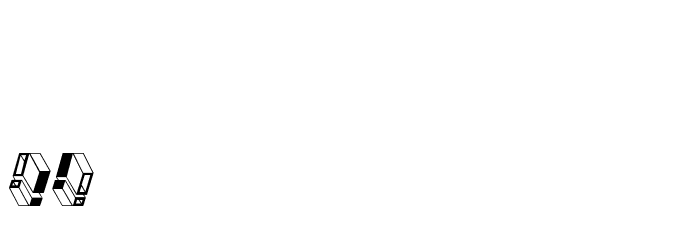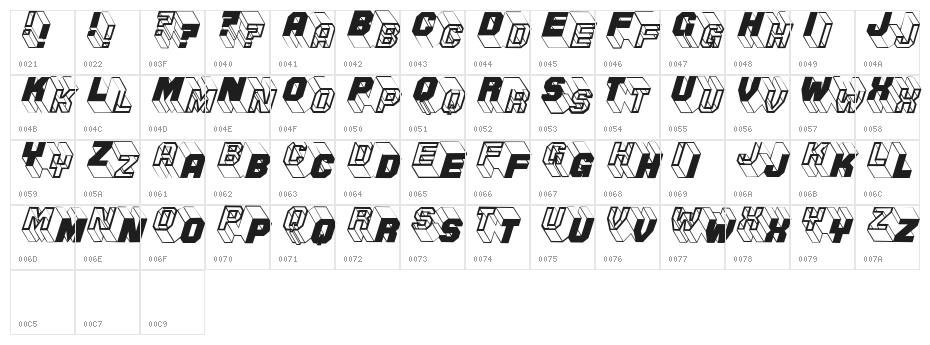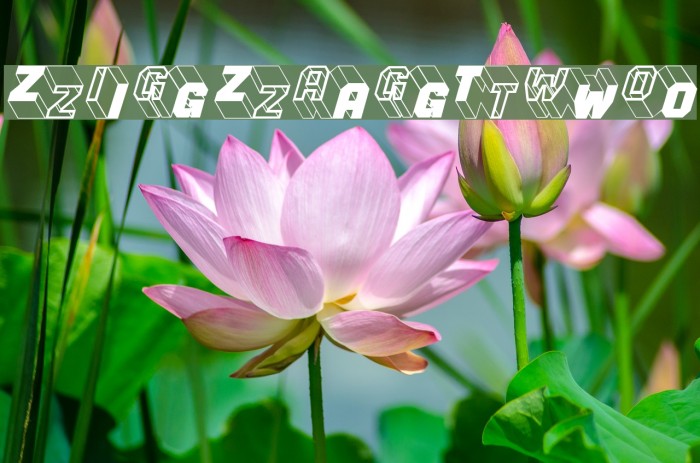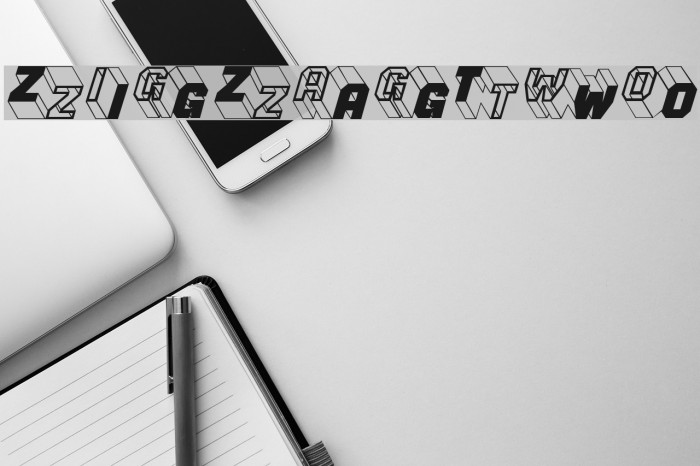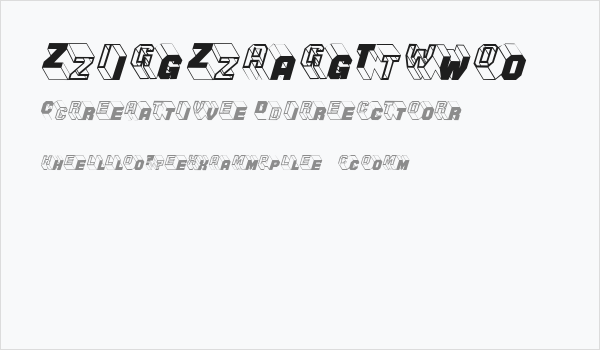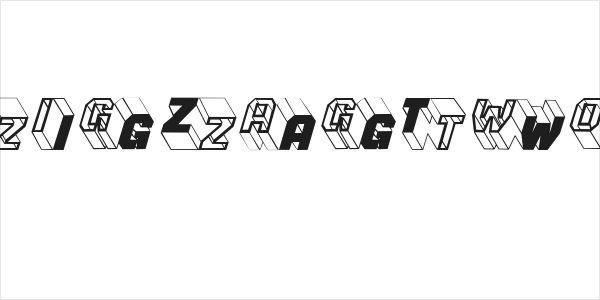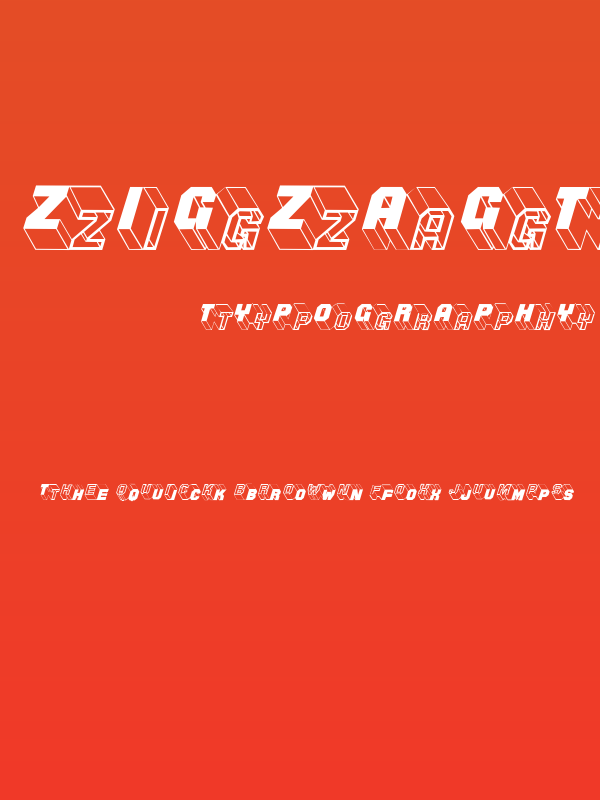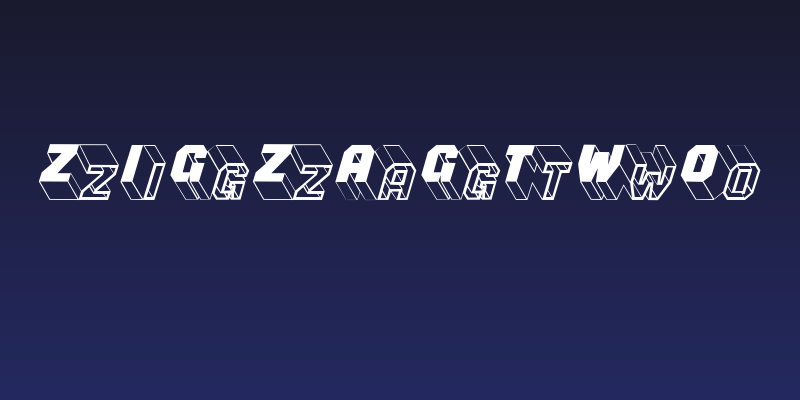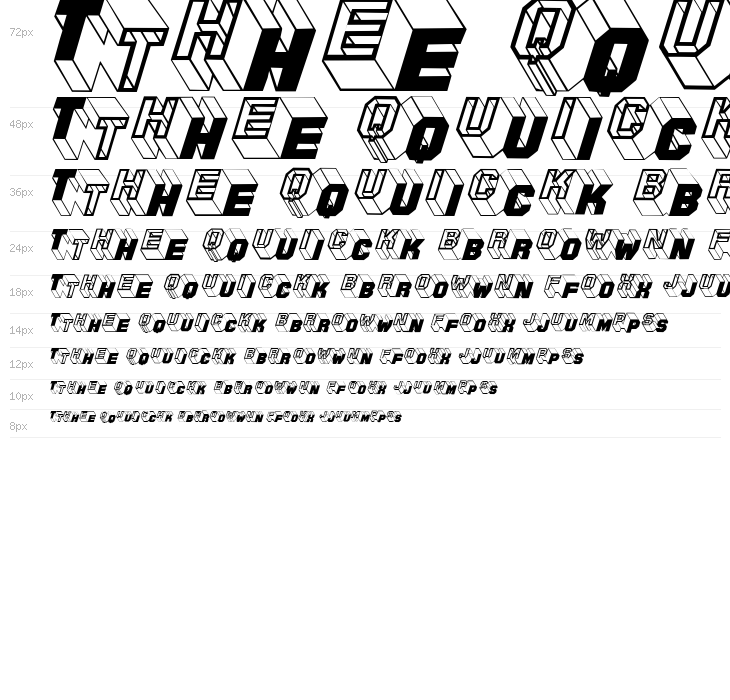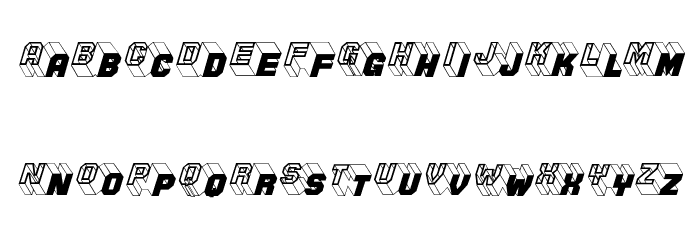
ZigZagTwo Font
ZigZagTwo Description
This font features a bold, three-dimensional geometric design that creates a striking visual impact. Each character is constructed with a blocky, zigzag pattern that gives it a dynamic and playful appearance. The letters are outlined with a thick black line, enhancing their 3D effect and making them stand out against any background. The style is reminiscent of retro or vintage arcade games, offering a nostalgic feel while maintaining a modern edge. The font is highly decorative, making it ideal for attention-grabbing headlines or logos. Its unique structure and bold presence make it unsuitable for body text but perfect for projects that require a strong visual statement.
| Overall Style | Retro, Modern |
| Proposed Projects | Perfect for retro-themed designs, video game graphics, posters, and eye-catching headlines. |